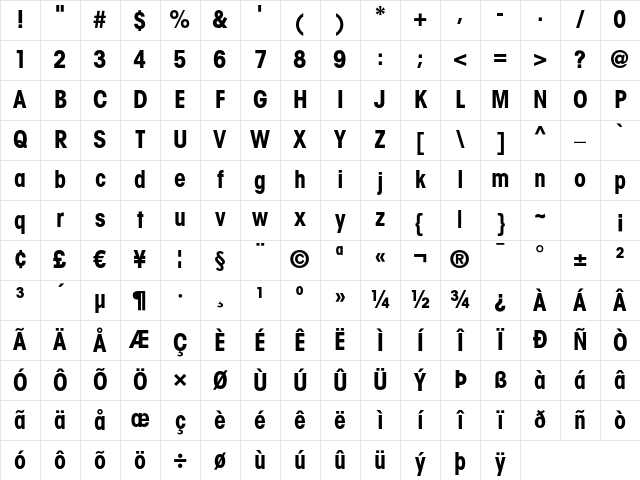
ITC Avant Garde Gothic LT Condensed Bold
Design Context for ITC Avant Garde Gothic LT
ITC Avant Garde Gothic LT takes a clean, functional approach - its unadorned letterforms prioritise legibility and work reliably across screen and print environments. Its bold stroke weight gives it real presence on the page. Its narrow stance lets it pack a punch even in space-constrained designs.
Font Pairing: Use ITC Avant Garde Gothic LT for headlines alongside a lighter-weight sans or serif for body copy to establish clear visual hierarchy.
Pro Tip: Use ITC Avant Garde Gothic LT tightly set in headlines and banners - its condensed proportions make it ideal for maximum impact in minimum horizontal space.